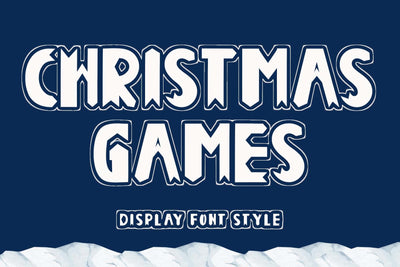
Christmas Games
"Christmas Games" is a unique display font. It comes with capital letters, lowercase letters, numbers, punctuation, and multilingual support. It is perfect for use on Christmas, Winter, Party, Halloween, Valentine, Comic, Cartoon, Banner, Poster, Print, Branding, Sticker, and more.